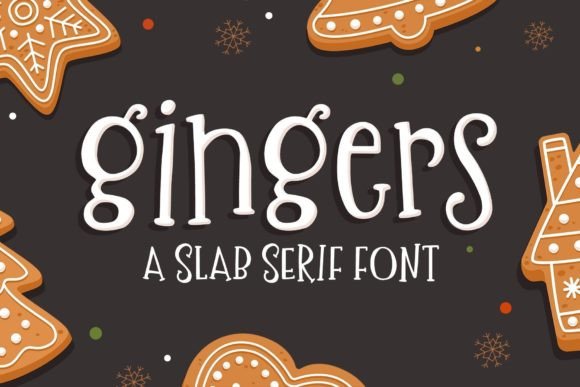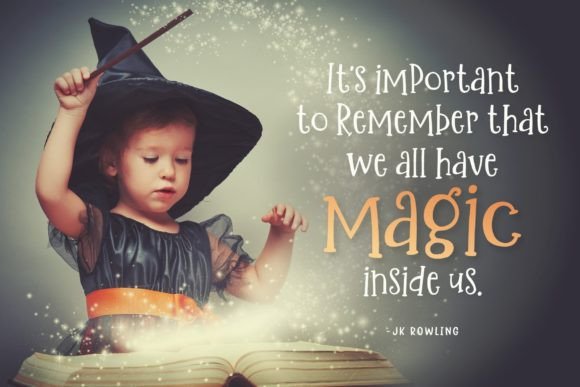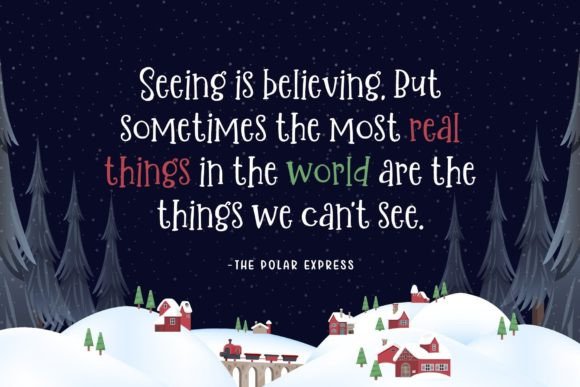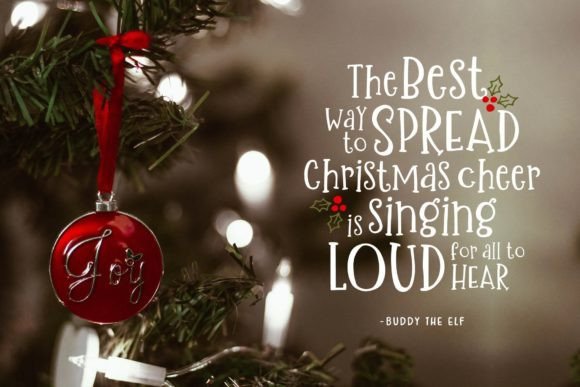
Gingers Font: A Whimsical Slab Serif for Cute & Playful Designs!
About the Gingers Font
Discover the charm of Gingers Font. This font is a perfect blend of modern aesthetics and classic appeal. Gingers is a sweet and curly slab serif font. It is perfect for the holiday season or any time of the year when you need to add a little whimsy and charm. Looks great in large sizes as well as is very readable in smaller sizes.
Gingers’ playful yet refined nature makes it ideal for headlines, short text blocks on packaging, or branding elements requiring a touch of whimsy. Its charm works well in greeting cards, invitations, and short promotional materials. However, its curly serifs might prove less effective in body text or UI elements demanding high legibility at smaller sizes. Avoid using it for lengthy paragraphs or applications requiring precise screen readability.
For effective pairings, consider balancing Gingers’ sweetness. A clean sans-serif like Open Sans or Lato would offer excellent contrast and enhance readability in supporting text. Alternatively, a more geometric sans-serif such as Roboto could create a modern, balanced feel. For a more luxurious touch, a delicate script font could add an elegant layer of sophistication.
Gingers possesses a friendly, approachable personality, best suited for brands and projects that convey warmth and a touch of nostalgia. Its personality leans towards charming and slightly retro, rather than overtly modern or minimalist.
Gingers Font Usage Examples
Gingers Font Example